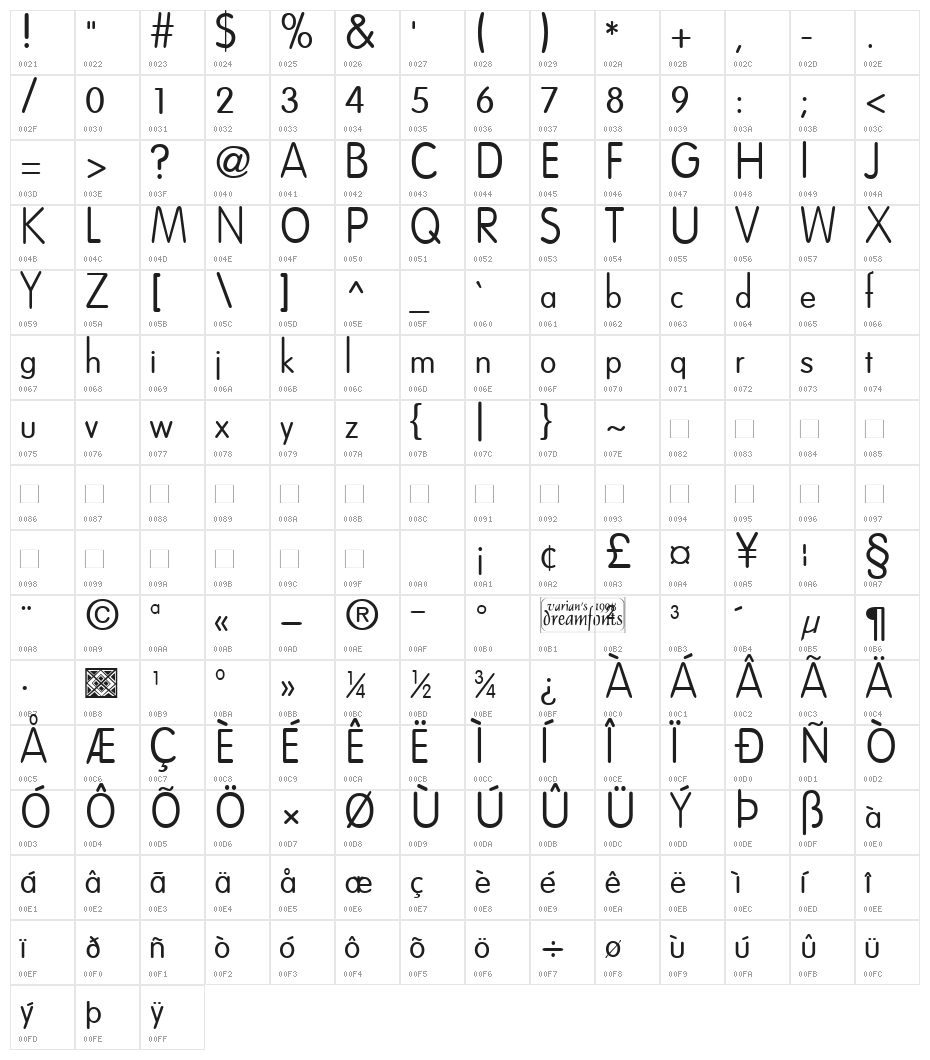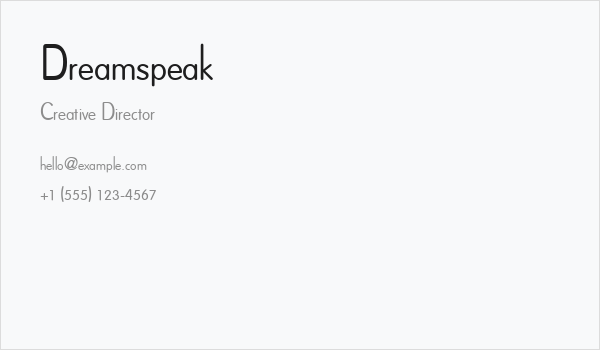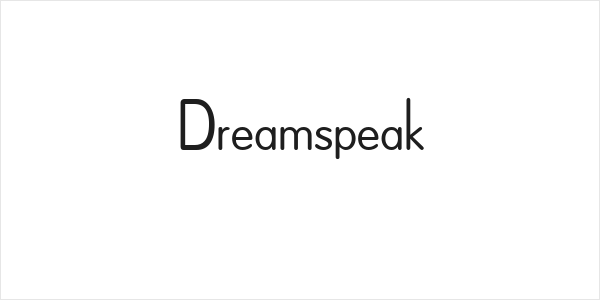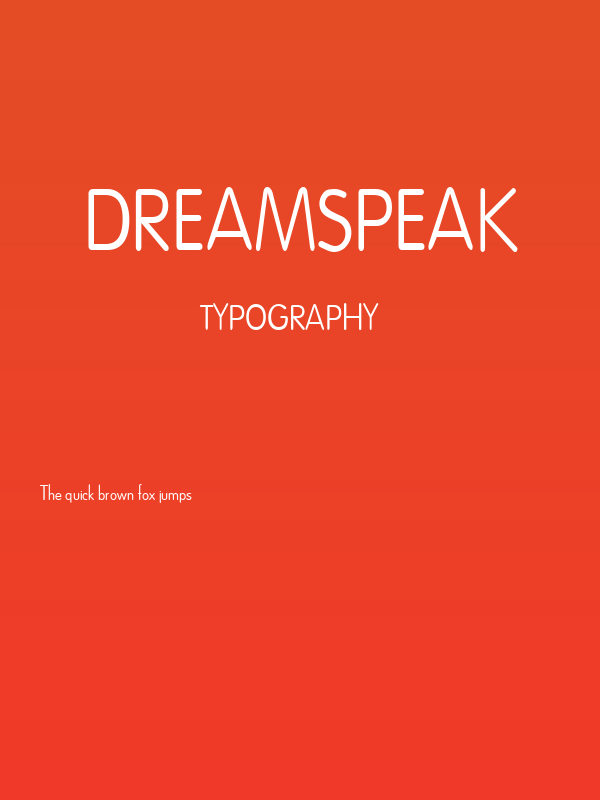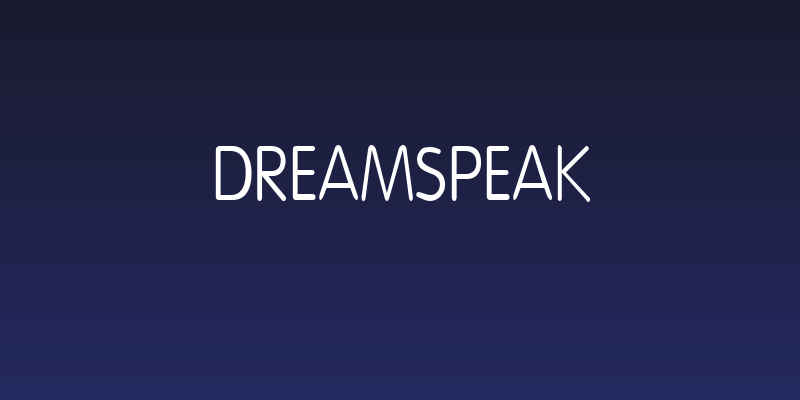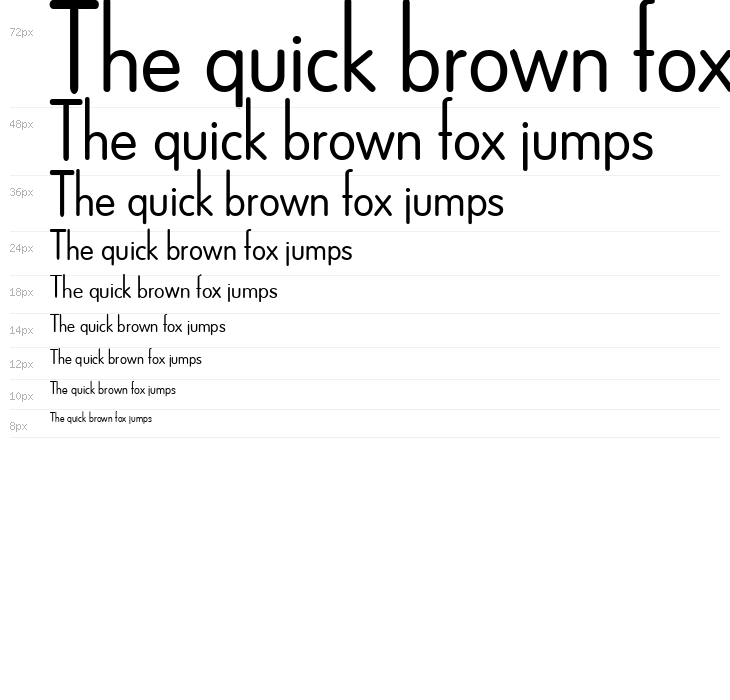
Dreamspeak Font
Dreamspeak Description
This font features a clean and modern sans-serif design with smooth, rounded edges that give it a friendly and approachable appearance. The characters are evenly spaced, providing a balanced and harmonious look. The uppercase letters are slightly taller than the lowercase, maintaining a consistent width throughout. Numbers and special characters are designed to match the overall style, ensuring readability and versatility. The simplicity and clarity of the font make it suitable for a wide range of applications, from digital interfaces to print media.
Proposed ProjectsIdeal for user interfaces, branding, advertising, and editorial design.